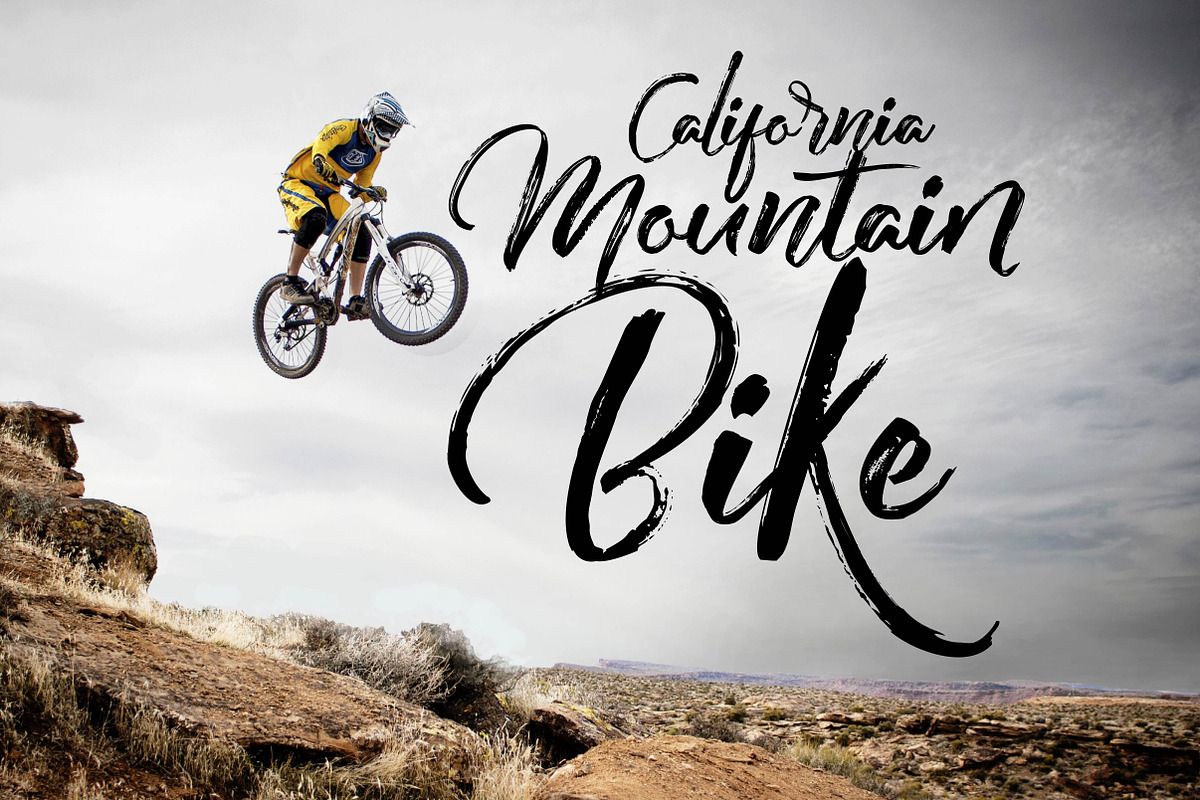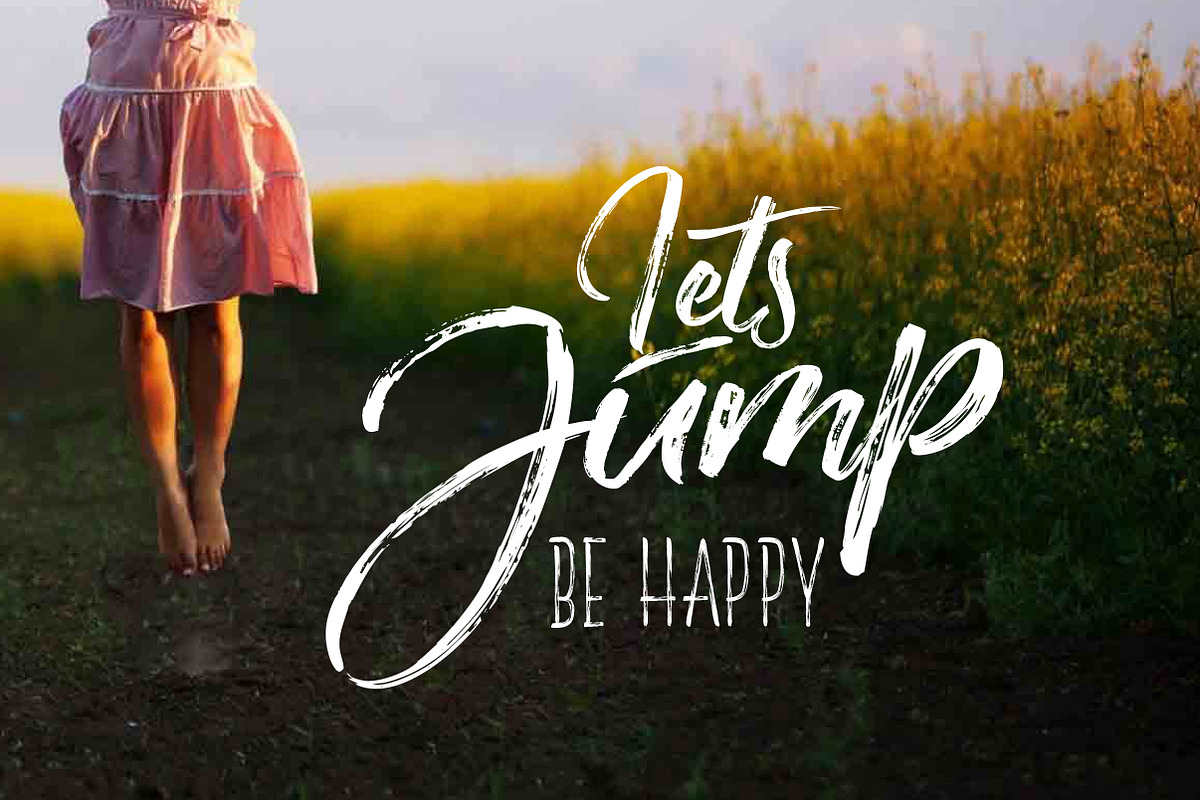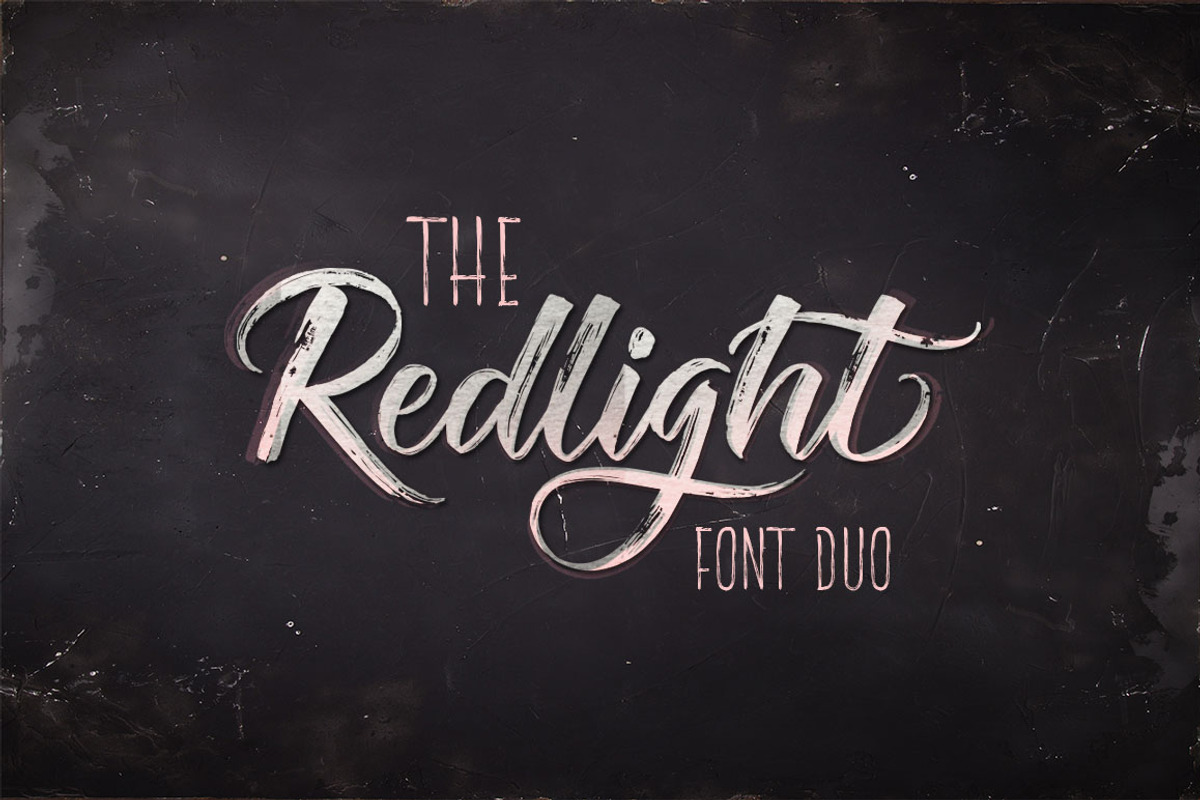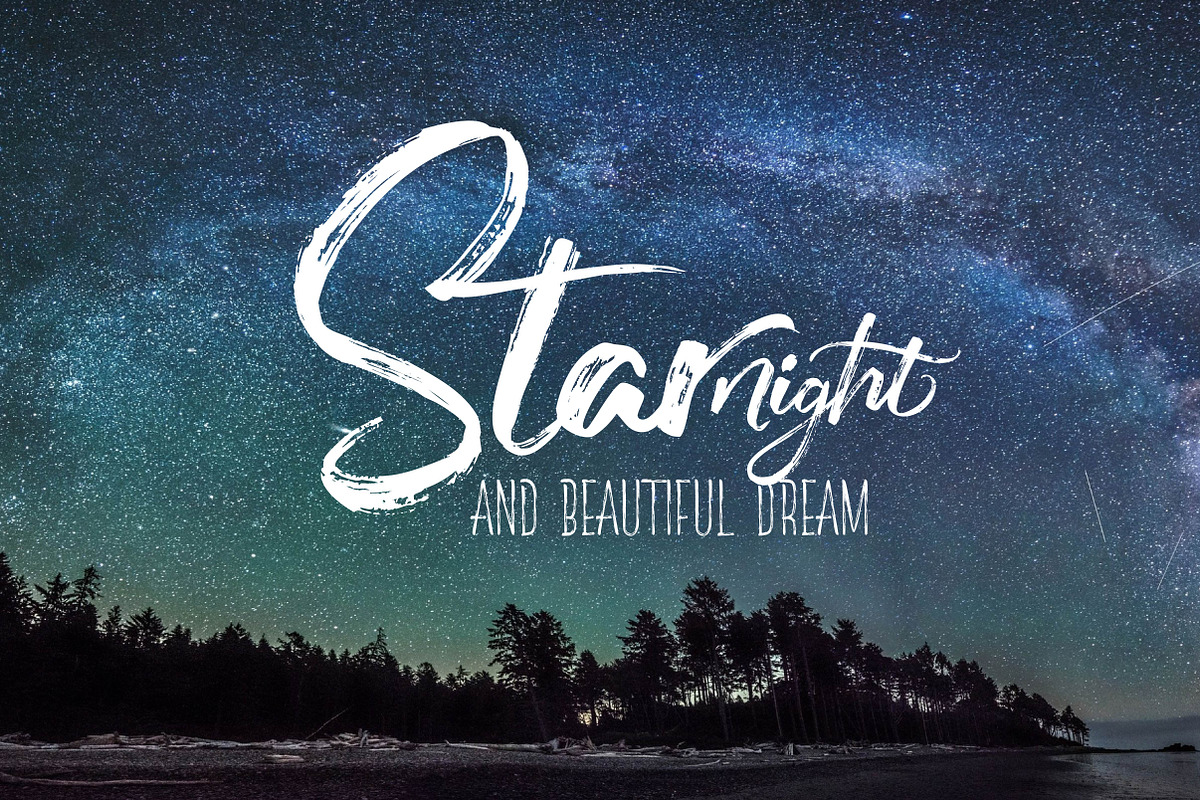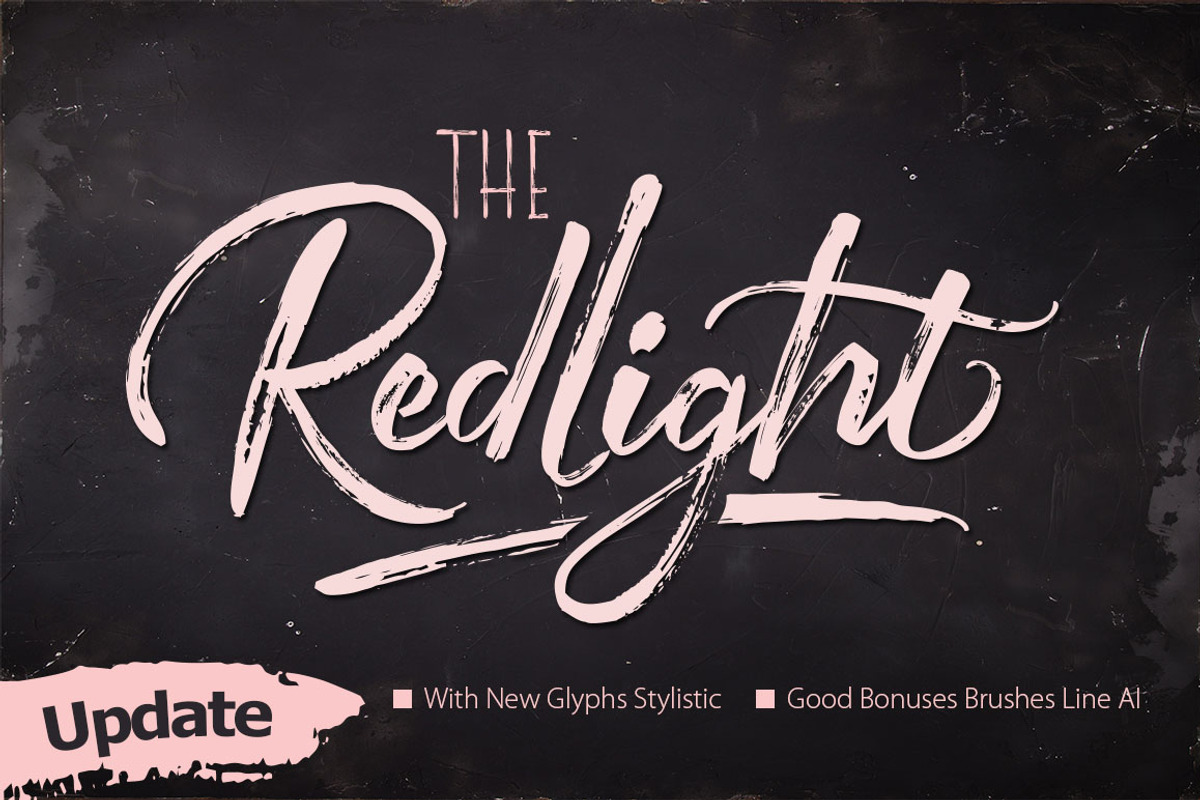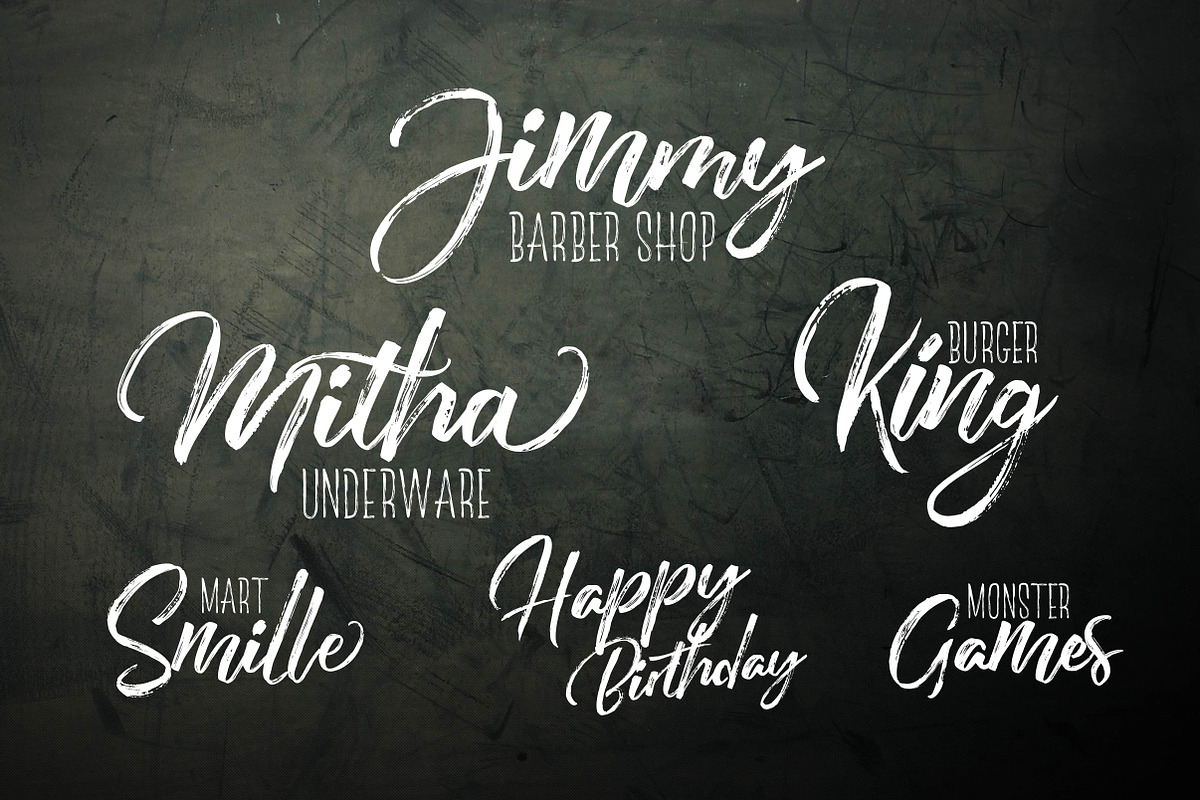
The Redlight Font Duo (UPDATE)
The Redlight Font Duo (UPDATE) by Olexstudio is a font selected for branding, posters, packaging, typography.
- The Redlight Font Duo is a beautiful Script, It suitable for wedding invitation, greeting cards, T-Shirt, Logo or any design that you create
The Redlight Font Duo (UPDATE) by Olexstudio fits naturally into Branding, posters, packaging, typography.